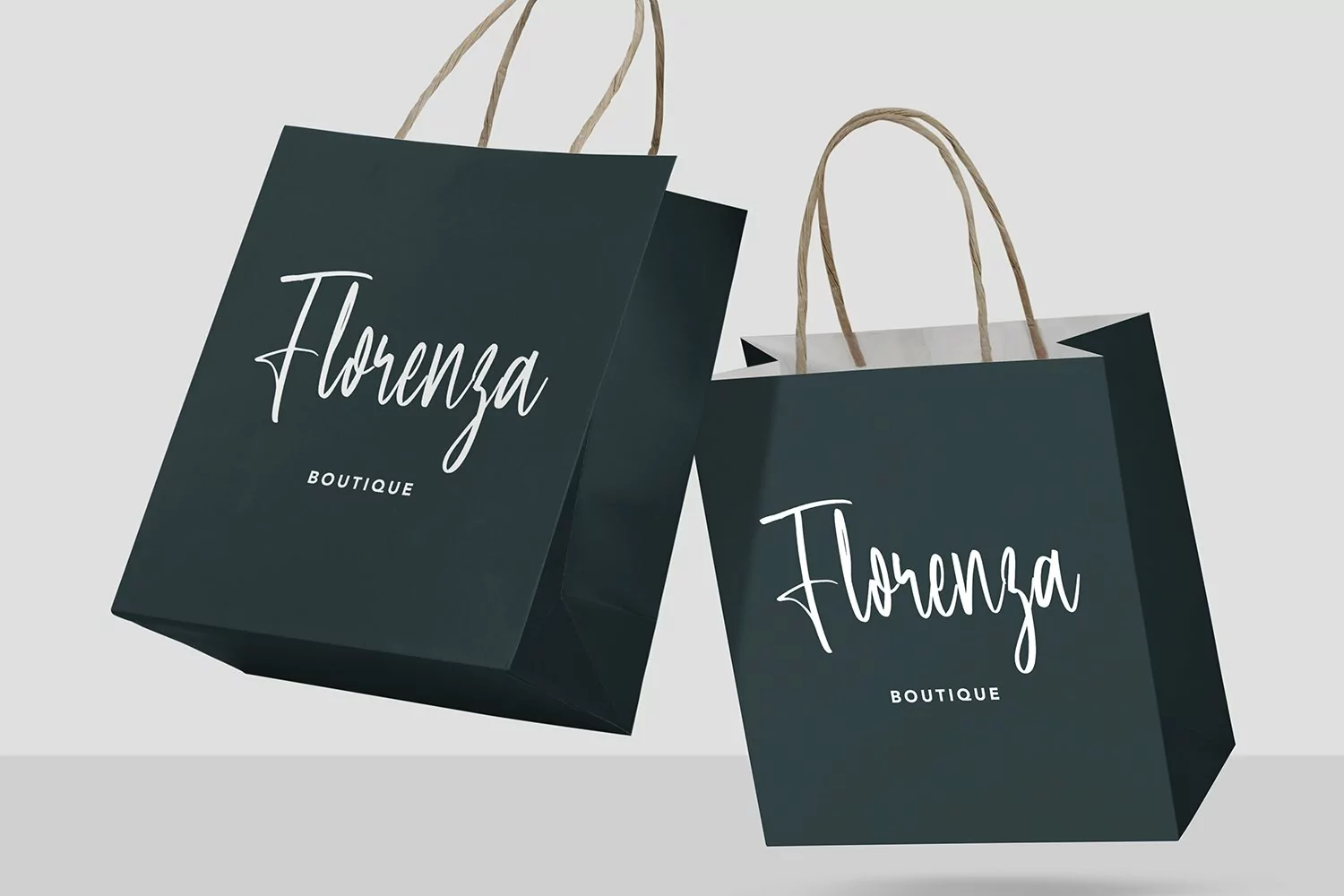
FlowerBreathing - Beauty Calligraphy Font that contain lowercase, uppercase, symbol, and also support multi language. There’s a lot ligatures in this font. This Font also comes with ligatures, alternates and many more. this font suitable for fashion, branding, catalog and other design what you want.